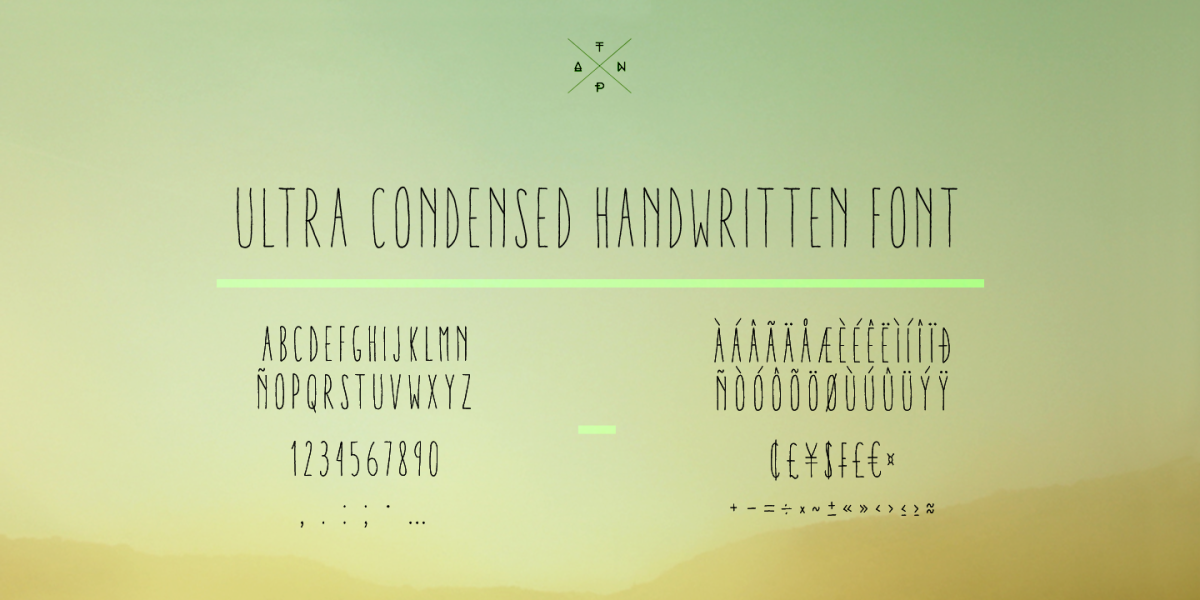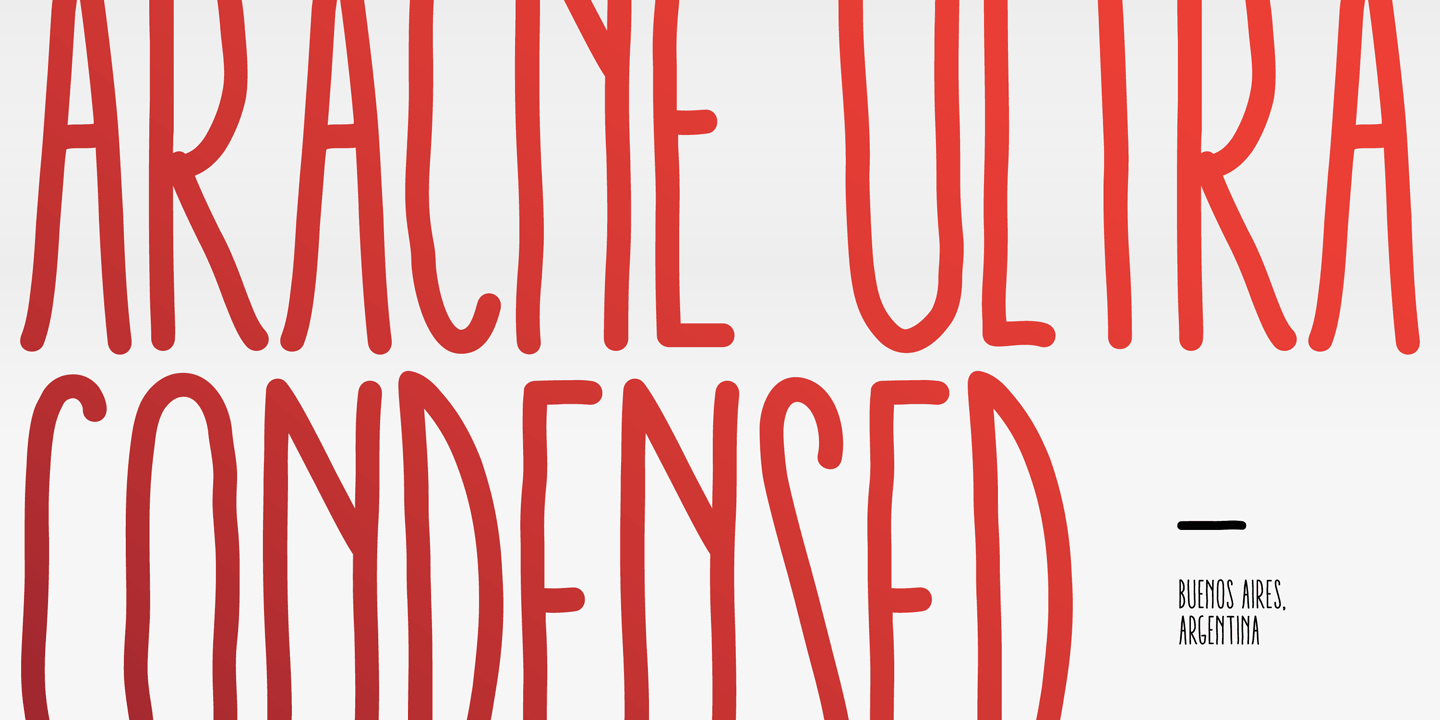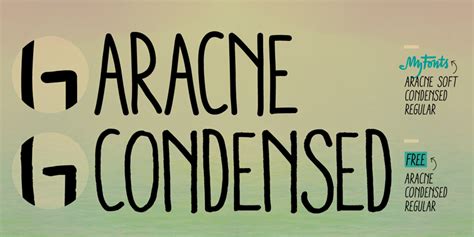
Aracne Condensed Font . Web aracne condensed font family was designed by julia martinez diana and published by antipixel. Web aracne condensed is a display and hand display font family.
Web aracne condensed is a display and hand display font family. Web aracne condensed à € by antipixel. Web aracne ultra condensed font | dafont.com.
Web aracne condensed à € by antipixel. Web aracne ultra condensed font | dafont.com. This typeface has twelve styles and was published by antipixel. Web aracne condensed font family was designed by julia martinez diana and published by antipixel.
Aracne Condensed Font - Web aracne condensed font download. 10 matching requests on the forum. Web aracne condensed is a trademark of julia martinez diana, antipixel. This typeface has twelve styles and was published by antipixel. Web aracne condensed is a display and hand display font family.
Aracne Condensed Font - This typeface has twelve styles and was published by antipixel. Web aracne condensed font family. Web aracne condensed is a display and hand display font family. Web aracne ultra condensed font | dafont.com. 10 matching requests on the forum.
Aracne Condensed Font - Web aracne condensed font family was designed by julia martinez diana and published by antipixel. 10 matching requests on the forum. Web aracne condensed is a display and hand display font family. Web aracne condensed à € by antipixel. Web aracne ultra condensed font | dafont.com.
Aracne Condensed Font - Web aracne condensed font download. 10 matching requests on the forum. Web aracne condensed à € by antipixel. Web aracne ultra condensed font | dafont.com. Web aracne condensed font family.
Aracne Condensed Font - This typeface has twelve styles and was published by antipixel. Web aracne condensed font download. Web aracne condensed is a display and hand display font family. Web aracne ultra condensed font | dafont.com. Web aracne condensed is a trademark of julia martinez diana, antipixel.
Aracne Condensed Font - Aracne condensed contains 12 styles and family. Web aracne condensed font family was designed by julia martinez diana and published by antipixel. Web aracne condensed is a display and hand display font family. 10 matching requests on the forum. Web aracne condensed font family.
Aracne Condensed Font - Web aracne condensed is a trademark of julia martinez diana, antipixel. Web aracne condensed font download. Web aracne condensed font family. Web aracne ultra condensed font | dafont.com. Web aracne condensed font family was designed by julia martinez diana and published by antipixel.
Aracne Condensed Font - Web aracne condensed is a trademark of julia martinez diana, antipixel. Web aracne ultra condensed font | dafont.com. Aracne condensed contains 12 styles and family. This typeface has twelve styles and was published by antipixel. 10 matching requests on the forum.
Aracne Condensed Font - Web aracne condensed à € by antipixel. Web aracne ultra condensed font | dafont.com. Web aracne condensed font download. 10 matching requests on the forum. Web aracne condensed is a display and hand display font family.
Aracne Condensed Font - Web aracne condensed font download. Web aracne ultra condensed font | dafont.com. Web aracne condensed à € by antipixel. Web aracne condensed font family was designed by julia martinez diana and published by antipixel. 10 matching requests on the forum.
Aracne Condensed Font - Web aracne condensed font family was designed by julia martinez diana and published by antipixel. Web aracne condensed font family. Web aracne ultra condensed font | dafont.com. Web aracne condensed is a trademark of julia martinez diana, antipixel. Aracne condensed contains 12 styles and family.
Aracne Condensed Font - Aracne condensed contains 12 styles and family. Web aracne condensed is a display and hand display font family. Web aracne condensed is a trademark of julia martinez diana, antipixel. Web aracne condensed à € by antipixel. 10 matching requests on the forum.
Aracne Condensed Font - Web aracne condensed is a trademark of julia martinez diana, antipixel. Web aracne condensed à € by antipixel. Web aracne ultra condensed font | dafont.com. This typeface has twelve styles and was published by antipixel. Web aracne condensed font family.
Aracne Condensed Font - Web aracne condensed à € by antipixel. Web aracne ultra condensed font | dafont.com. Web aracne condensed is a display and hand display font family. Web aracne condensed font family. This typeface has twelve styles and was published by antipixel.
Aracne Condensed Font - Web aracne condensed is a trademark of julia martinez diana, antipixel. 10 matching requests on the forum. Aracne condensed contains 12 styles and family. Web aracne ultra condensed font | dafont.com. Web aracne condensed font family was designed by julia martinez diana and published by antipixel.
Aracne Condensed Font - 10 matching requests on the forum. Aracne condensed contains 12 styles and family. Web aracne condensed is a display and hand display font family. Web aracne condensed font download. This typeface has twelve styles and was published by antipixel.